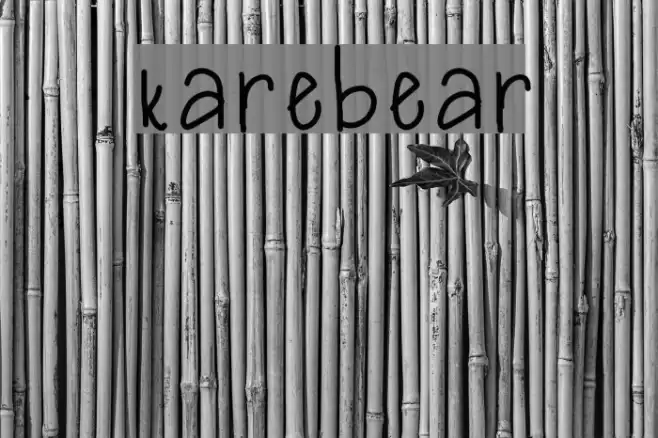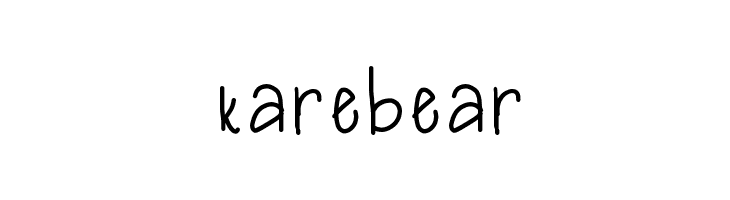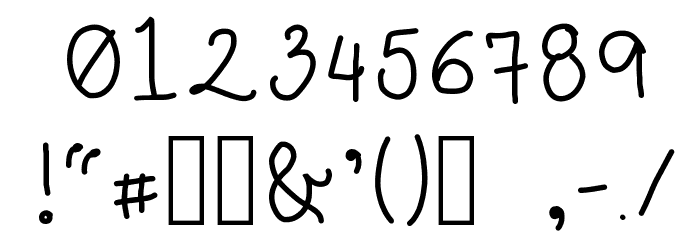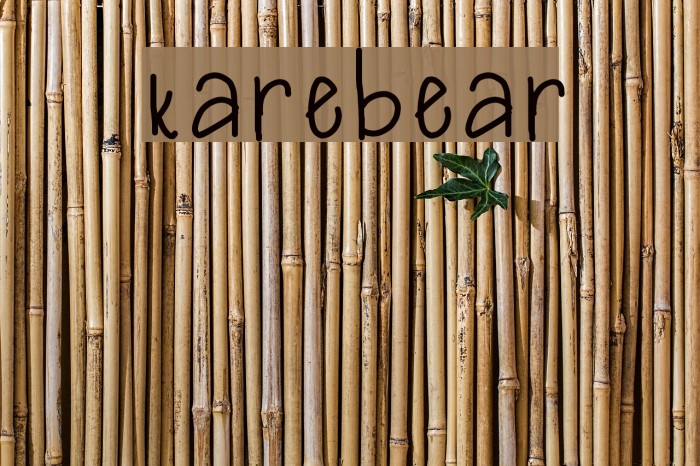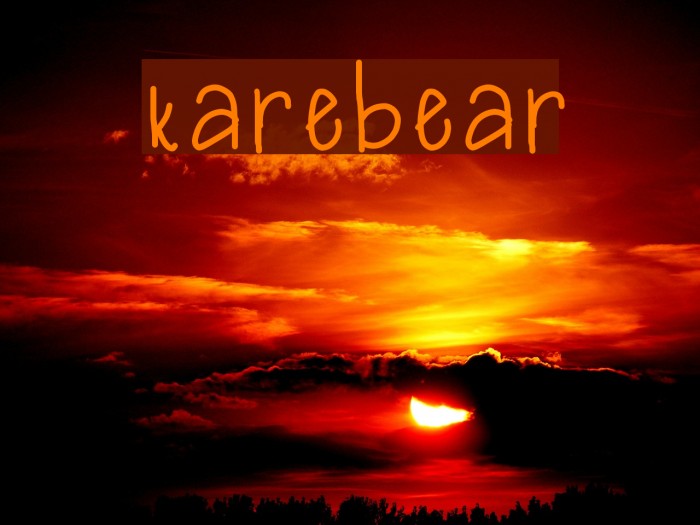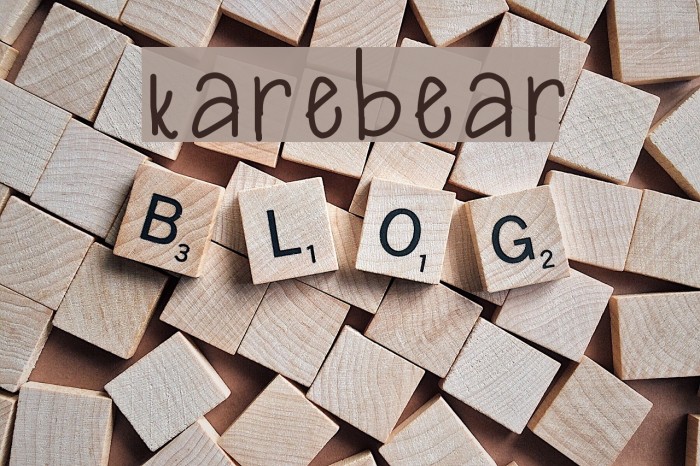
karebear Font
karebear Description
This playful and whimsical font features a handwritten style with a casual and informal appearance. The letters are slightly uneven, giving it an authentic, hand-drawn feel. The uppercase letters are bold and distinct, while the lowercase letters maintain a consistent flow with occasional loops and curves, particularly noticeable in characters like 'g' and 'y'. The numbers are clear and easy to read, matching the overall style of the alphabet. Special characters are included, maintaining the same playful aesthetic. This font is perfect for projects that require a personal touch, such as invitations, greeting cards, or children's books.
A playful, handwritten font with a casual and whimsical style from Handwritten fonts.
- Proposed Projects: Ideal for invitations, greeting cards, children's books, and creative projects requiring a personal touch.
- Overall Style: Casual, Playful
- Use Case: Headlines, Informal Text, Creative Projects